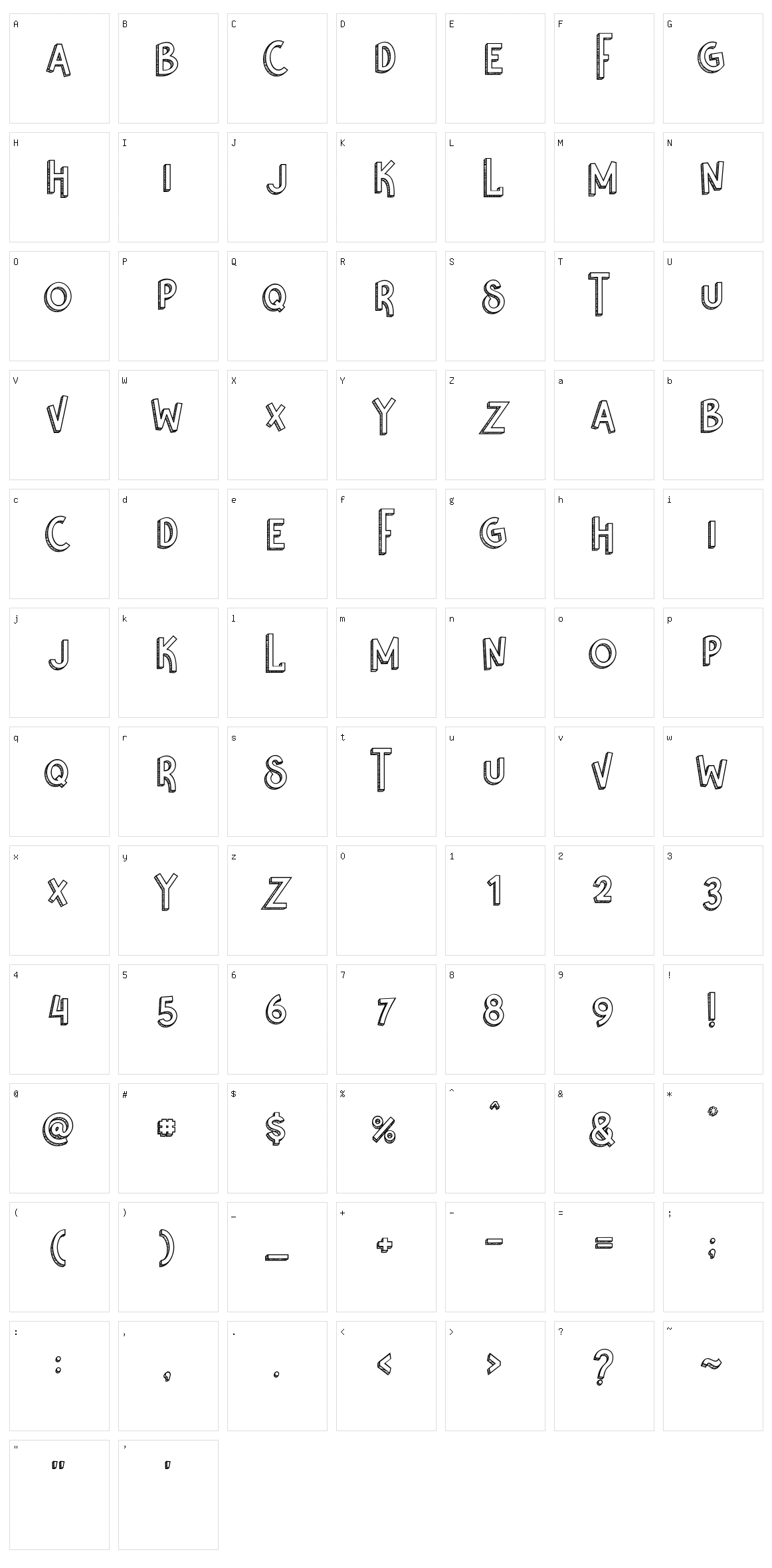
The free font Nikolas & Pine is carefully designed by Khurasan, showcasing a thoughtful balance of creativity and usability and falls under the Cartoon font style. When you download the ZIP file, it contains only 983.99 KB of font files, making it lightweight and quick to download. Please review the license details below to understand permitted usage and distribution rights. If license information is not available, we recommend using this font for personal projects only or contacting the author directly for commercial usage permissions.